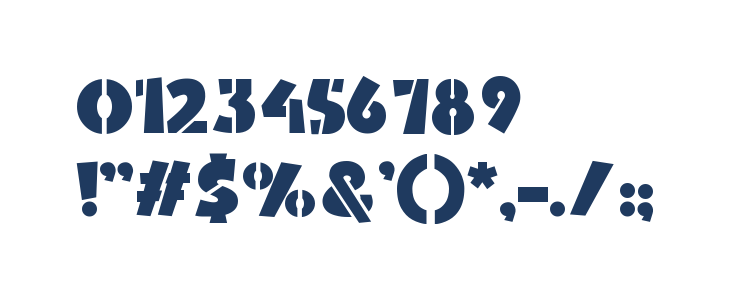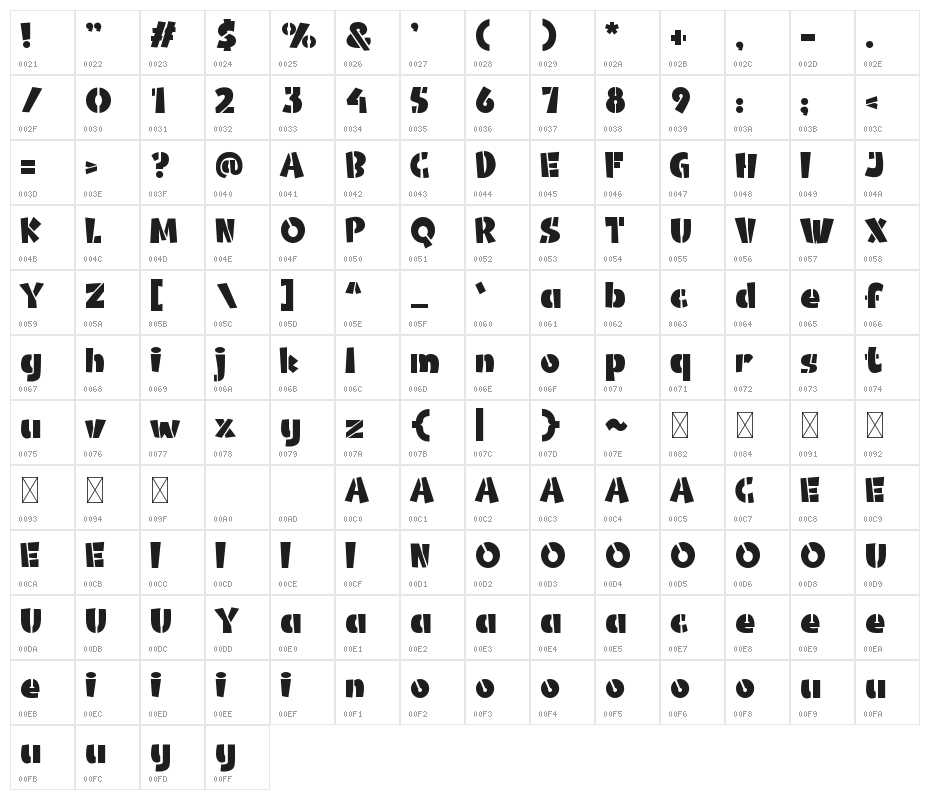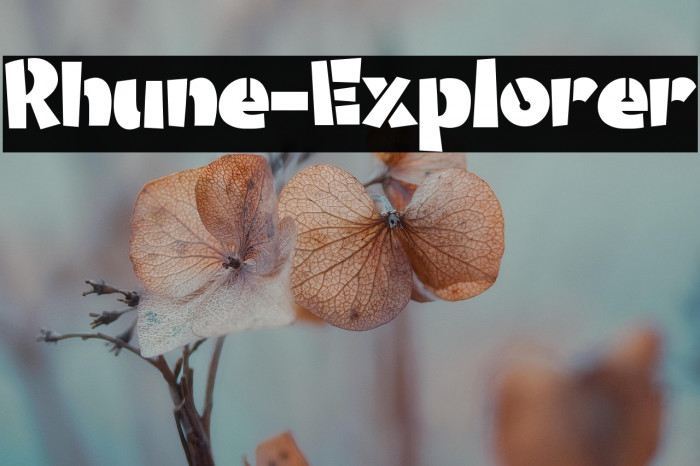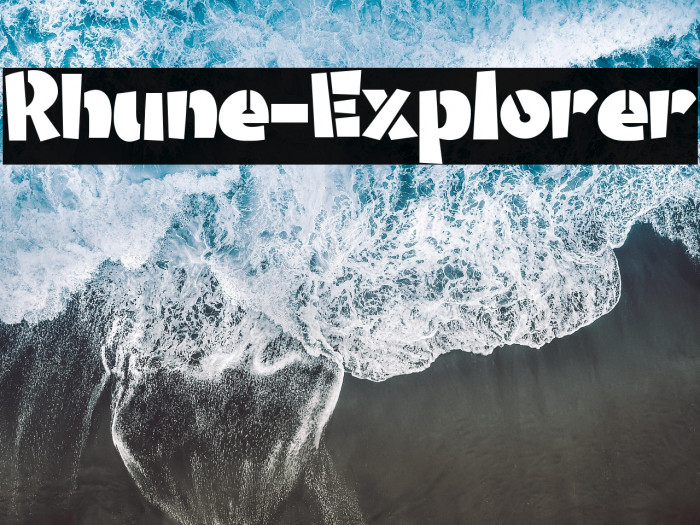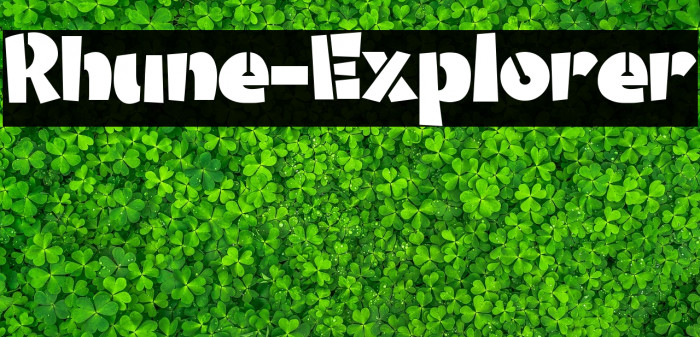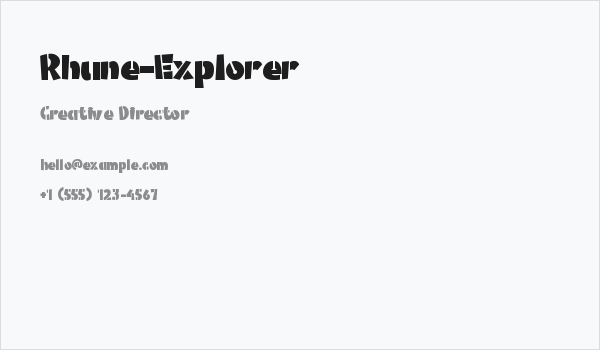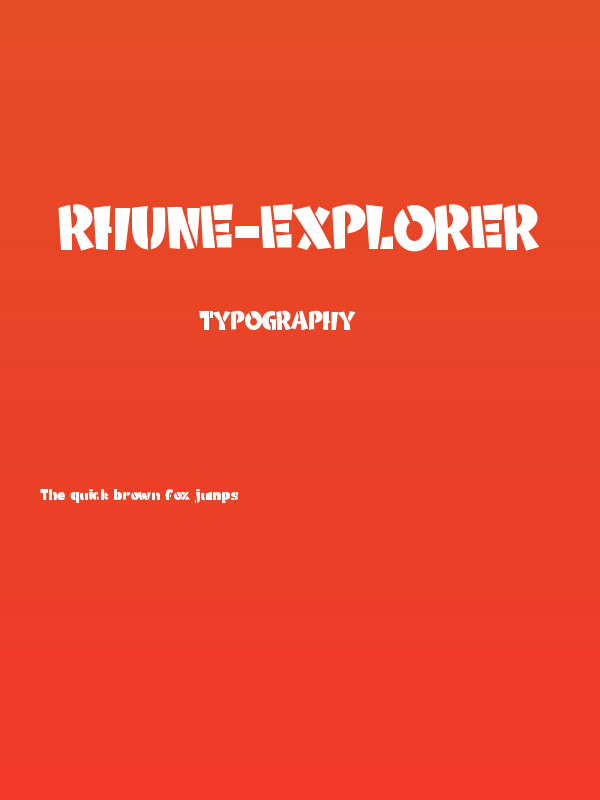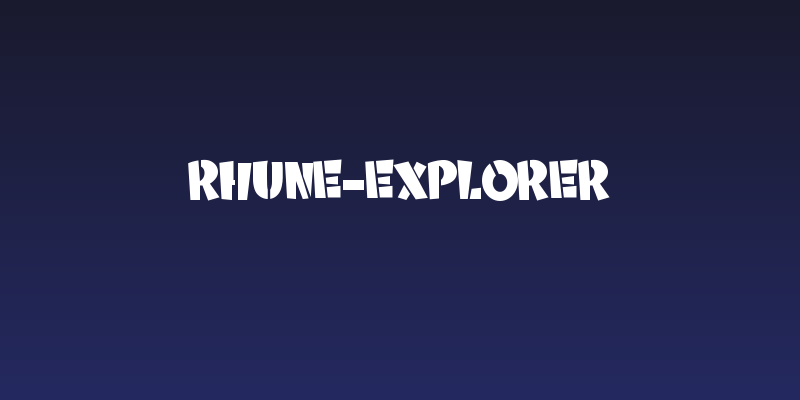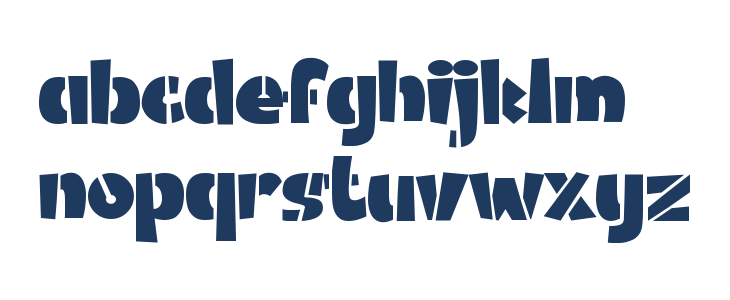
Rhune-Explorer Font
Rhune-Explorer Description
This font features a bold, geometric design with a playful and dynamic character. The letters are constructed with sharp angles and varying stroke widths, creating a sense of movement and energy. The uppercase and lowercase letters maintain a consistent style, with unique cutouts and shapes that add a modern and artistic flair. The numbers and special characters follow the same bold and distinctive style, making the font versatile for various creative applications. Its strong visual impact and unique design make it suitable for projects that require a standout typeface.
Proposed ProjectsIdeal for posters, branding, album covers, and any project needing a bold, artistic touch.